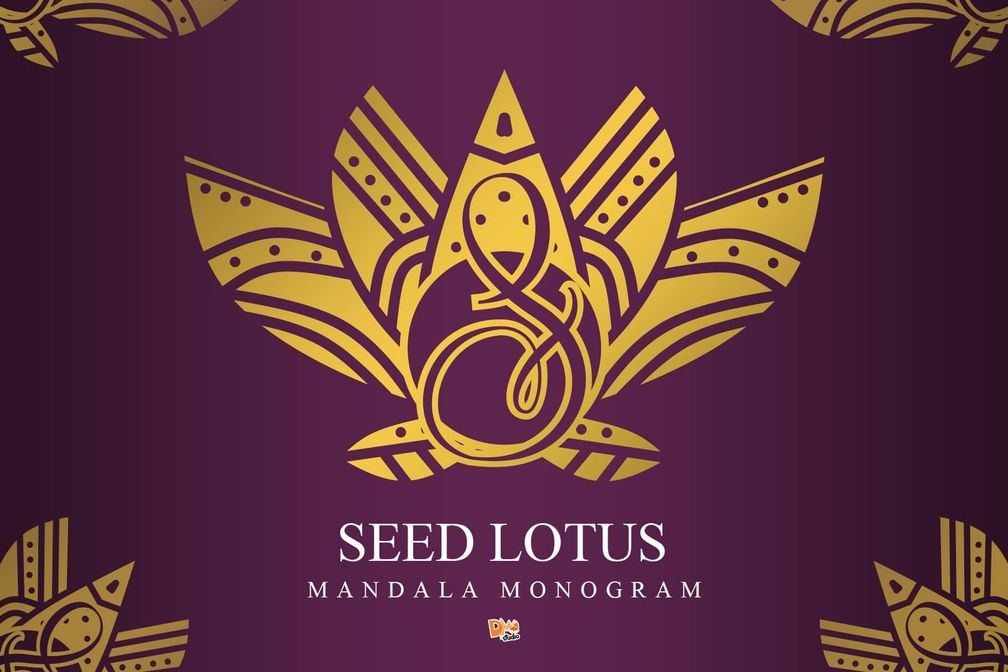
Seed Lotus Mandala Monogram
Seed Lotus Mandala Monogram – Minimal & Centered Mandala Font
Seed Lotus Mandala Monogram is a clean and symbolic font that embodies the purity and potential of a lotus seed through refined mandala-inspired letterforms. Designed for modern minimalists and spiritual creatives, it’s perfect for wellness branding, journal covers, affirmation cards, and mindful design projects. Its delicate yet rooted style reflects growth, simplicity, and intention.
• Seed-Inspired Mandala Design: Each letter integrates a centered lotus mandala motif, representing potential and inner peace.
• Clean & Intentional Aesthetic: Ideal for self-help projects, botanical themes, and conscious branding.
• Rooted in Simplicity: Minimal decorative accents emphasize clarity and focus.